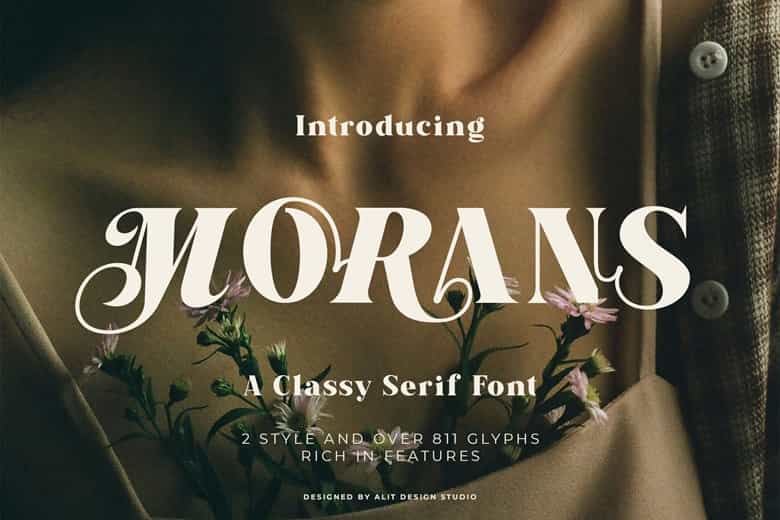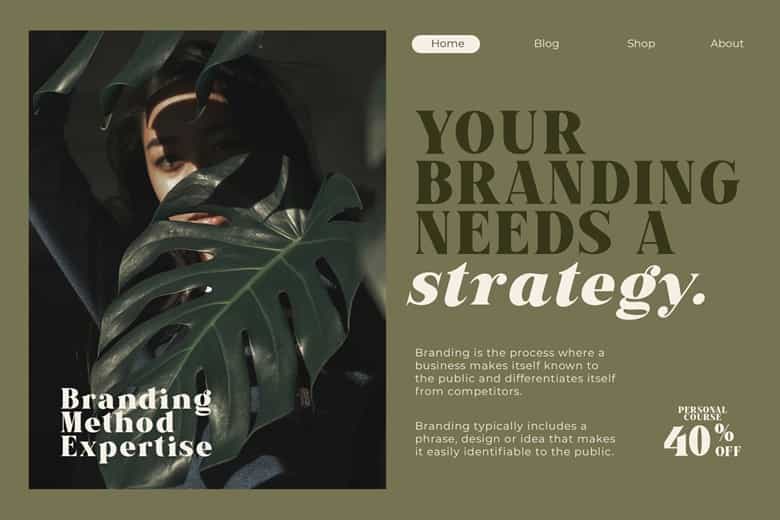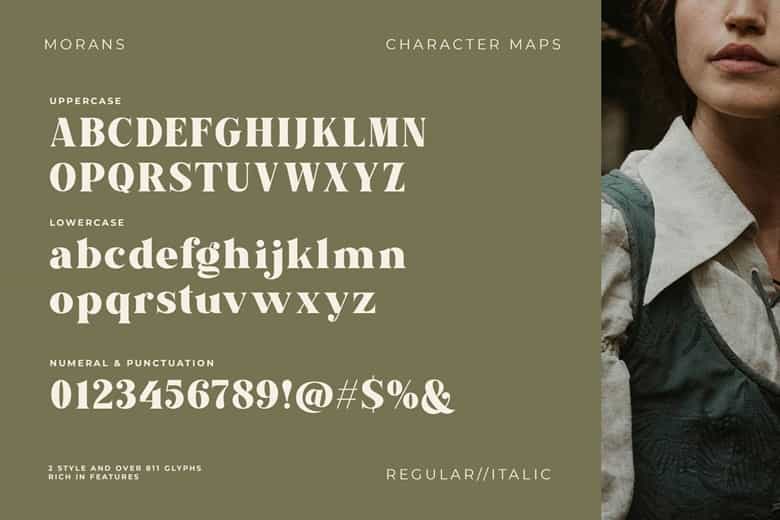
Morans can be described as a classy serif typography font that is well done to the highest level. Morans is a high-class serif font in a sophisticated type that was developed by Alit Design Studio for numerous applications. It is ideal for designers who wish to create a unique, more extravagant and clean-cut appearance in their work.